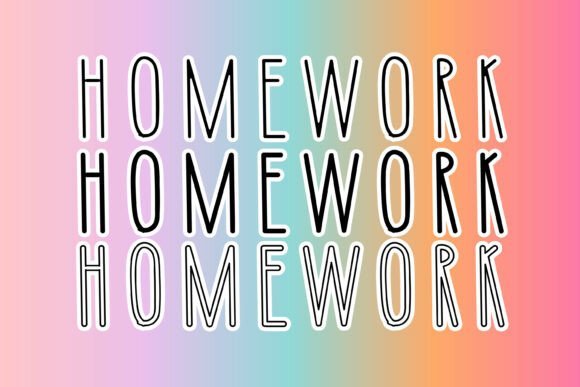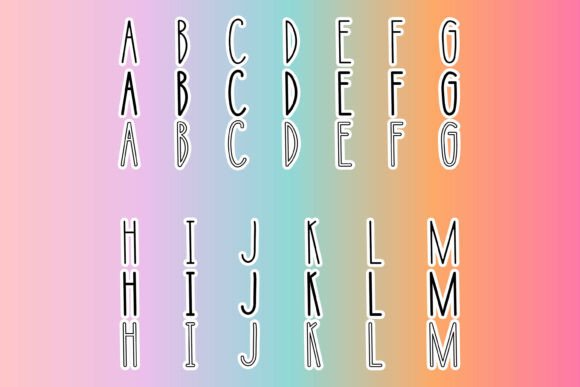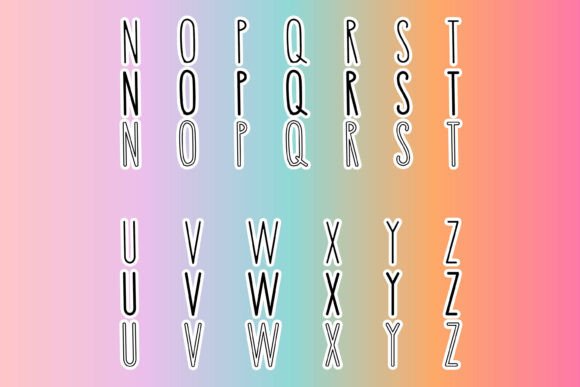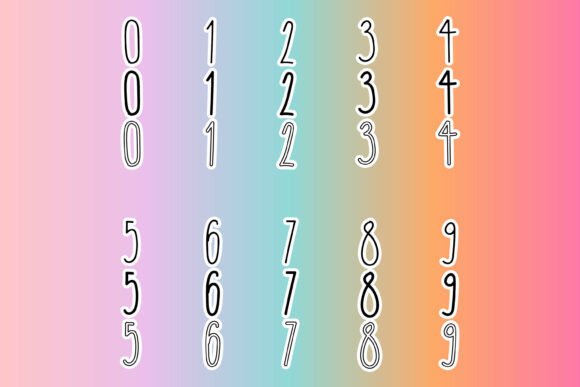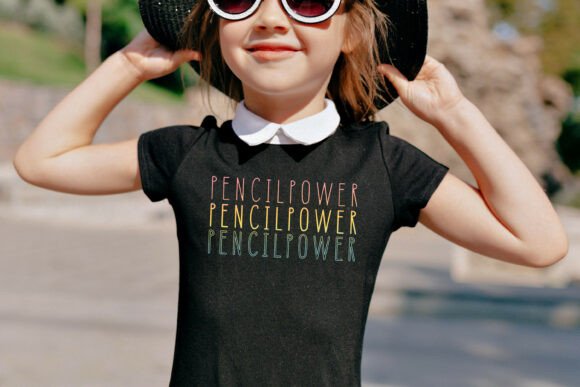
The Perfect Font for Back-to-School Projects
Remember the feel of scribbling notes in your school notebook, the satisfaction of neatly filling out a planner, and the joy of creating a DIY project for your classroom? Those memories come flooding back with the perfect font – Homework Font. Its nostalgic charm and organized structure evoke the familiar feel of lined paper and school notebooks.
Homework Font is a thoughtful design that caters to the needs of students, teachers, and designers alike. Its clean, bold lines make it perfect for educational projects, student planners, and school-themed designs that need a scholastic touch. For designers, Homework Font is a valuable addition to their toolkit, offering a unique and recognizable style that’s sure to stand out in any project.
Whether you’re a student, teacher, or designer, Homework Font is the perfect choice for adding a touch of nostalgia and organization to your work. Its versatility and unique design make it an essential font for anyone looking to create educational content that’s engaging, informative, and visually appealing.
Key Features of Homework Font
- Font Family: Homework Font is a sans-serif typeface designed specifically for educational purposes, making it ideal for textbooks, worksheets, and other learning materials.
- Font Size: The font family includes a range of weights and styles, from 10 to 72 points, providing flexibility for various font sizes and applications.
- Resolution: Optimized for print and digital use, Homework Font supports resolutions up to 300 DPI, ensuring clear readability on various devices.
- Unique Characteristics: The font’s distinctive design features include rounded edges, subtle serifs, and a clean, modern aesthetic, making it easy to read and understand for students of all ages.
- Language Support: Homework Font supports a wide range of languages, including Latin, Cyrillic, and Greek scripts, making it a versatile choice for educational materials worldwide.
Designer Review: Homework Font
Overall, I have mixed feelings about the Homework Font. While it has some great qualities, it also has some limitations that make it less desirable for certain projects.
- Unique, educational vibe: The font’s design is reminiscent of old-school notebooks and textbooks, which makes it perfect for projects related to education or academia.
- Clear, readable text: Despite its playful design, the font is surprisingly clear and easy to read, even at smaller font sizes.
- Good for titles and headings: The font’s bold, playful style makes it ideal for use in titles, headings, and other large text elements.
- Limited font family: The font family is relatively small, which may limit its versatility in certain projects.
- Not suitable for long blocks of text: The font’s playful design may become overwhelming if used for extended periods of time or in large blocks of text.
- May not be suitable for modern or tech-related projects: The font’s vintage, educational vibe may clash with modern or tech-related designs.
Overall, I think the Homework Font is a great choice for specific projects, such as educational materials, children’s books, or nostalgic designs. However, it may not be the best fit for more modern or technical projects.
Getting the Most Out of “Homework Font”
To get the most out of “Homework Font”, use it in conjunction with other design elements, such as a simple background and minimal graphics.
“Homework Font” is commonly used in educational materials, such as textbooks, worksheets, and presentations. It is also used in marketing materials, such as flyers and brochures, to convey a sense of nostalgia and retro appeal.